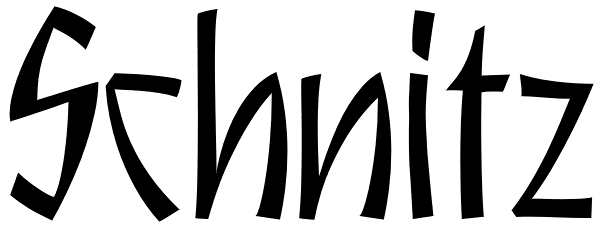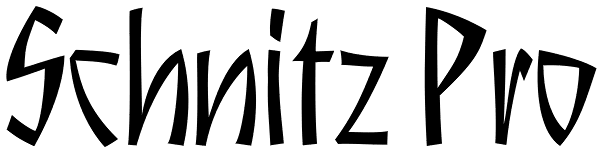
Schnitz
Linotype Schnitz is part of the Take Type Library, selected from the contestants of Linotype’s International Digital Type Design Contests of 1994 and 1997. Designed by the Finnish artist Osmo Niemi, the characters seem to contain no round forms at...
Schnitz
Schnitz Pro